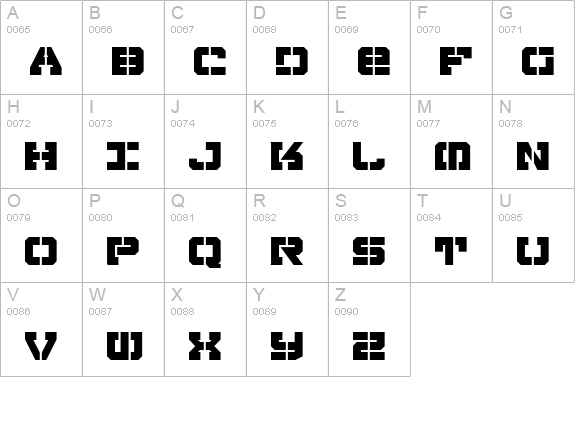
Vyper Bold is a strong, high-contrast variant in the Vyper typeface family \xE2\x80\x94 well suited to headlines, attention-grabbing titles, and strong calls-to-action.
Introducing Vyper Bold, a striking and modern font that commands attention with its bold and dynamic presence. This font is perfect for making a statement and adding a touch of boldness to any design project. Vyper Bold features clean lines and sharp angles, giving it a sleek and edgy look that is sure to stand out. Best of all, Vyper Bold is available for free download at FontsMarket.com. Whether you're working on a branding project, poster design, or any other creative endeavor, this versatile font is sure to elevate your work to the next level. Don't miss out on the opportunity to add Vyper Bold to your font collection and unleash your creativity with this striking typeface. Download it today and see the impact it can make on your designs!